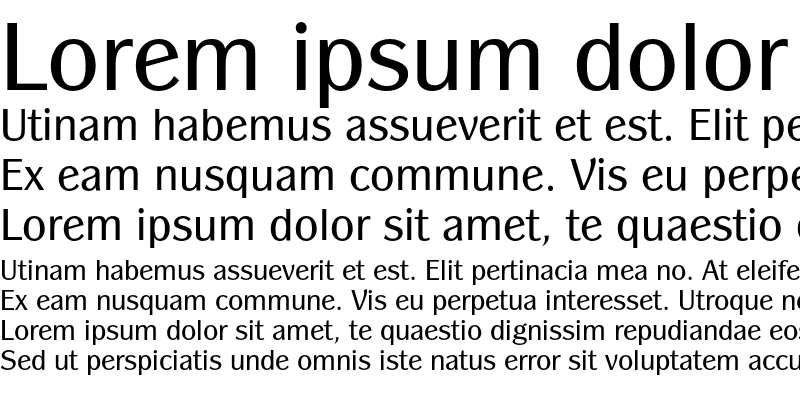
Milkshake vs Panache
Milkshake and Panache are both display typefaces sharing a display foundation. Where Milkshake leans script, retro, Panache brings high contrast, elegant. Compare which suits your Branding project.
| Feature | Milkshake | Panache |
| Classification | display | display |
| Source | Laura Worthington | ITC (International Typeface Corporation) |
Recommended: Milkshake
- script, retro design character
- Suited for Display and Retro
- From Laura Worthington
Consider: Panache
- high contrast, elegant design character
- Suited for Headlines and Editorial
- From ITC (International Typeface Corporation)